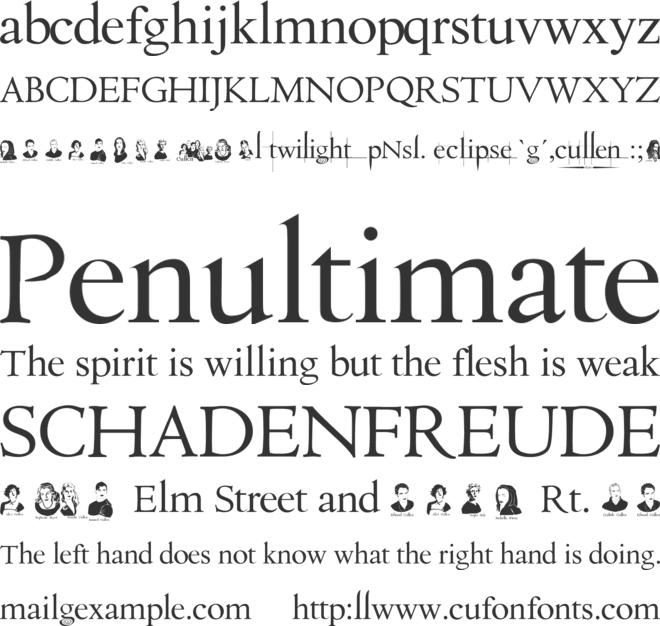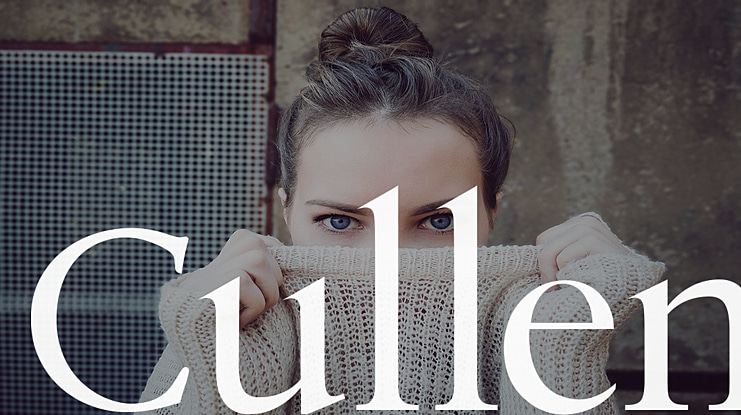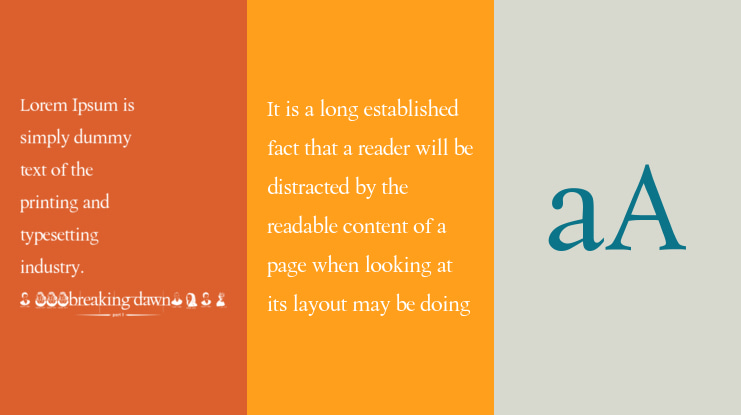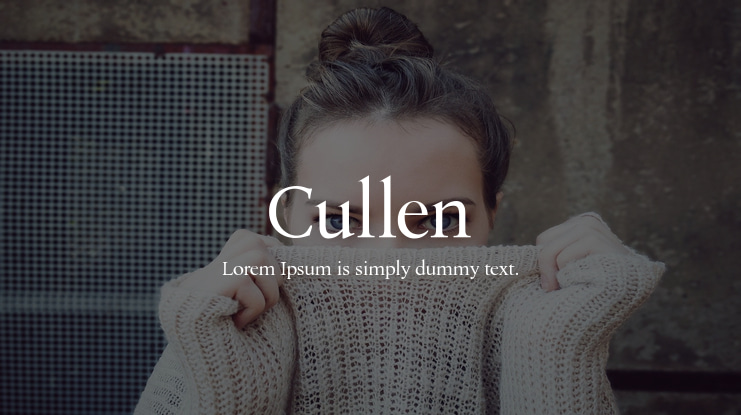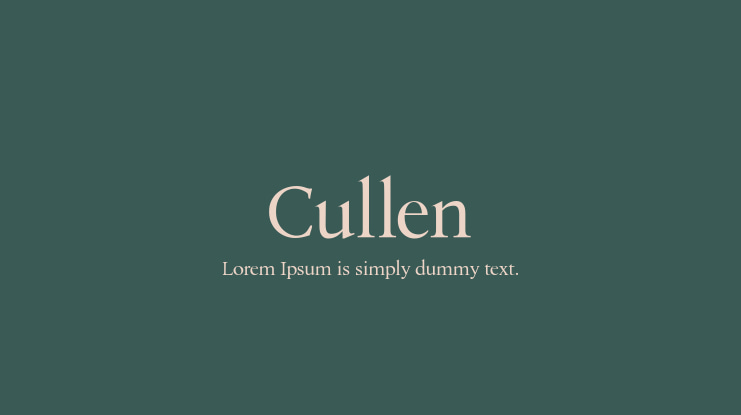
Cullen Font
CULLEN font: directly from the Best Seller of Stephenie Meyer, the dark gothic atmospheres beloveds to the cult of the vampiro, in an unknown garment that gives the young "adolescenziale romanticismo" in the name of Bella and Edward, in the forbidden Love beloveds to the gotten passionate girls-readers more.